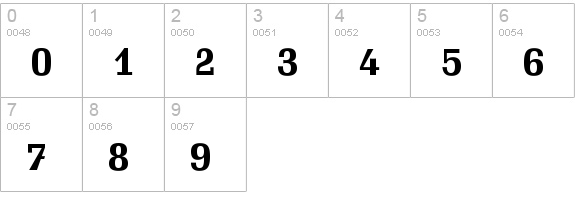
Schadow Bold Font Details
Schadow Bold is a strong, high-contrast variant in the Schadow typeface family \xE2\x80\x94 well suited to headlines, attention-grabbing titles, and strong calls-to-action.
Schadow Bold is a captivating and versatile font that exudes a sense of timeless elegance. This bold typeface is perfect for adding a touch of sophistication to any design project. Its strong and confident letterforms make a bold statement, while its subtle curves and refined details add a touch of warmth and approachability. Schadow Bold is not only visually stunning, but it also offers incredible functionality. Whether you are designing a logo, creating a poster, or crafting a headline, this font will effortlessly command attention and leave a lasting impression. One of the most remarkable aspects of Schadow Bold is that it is freely available to download at FontsMarket.com. This means that you can easily enhance your design projects with this exceptional font without any cost or restrictions. The availability of Schadow Bold on FontsMarket.com allows designers, creators, and enthusiasts alike to access this remarkable font and elevate their work to new heights. With its timeless elegance, versatility, and the freedom to download it for free, Schadow Bold is a font that truly stands out from the crowd. Whether you are a seasoned professional or a passionate hobbyist, this font is sure to become an invaluable asset in your design toolkit. Download Schadow Bold today from FontsMarket.com and let your creativity soar.